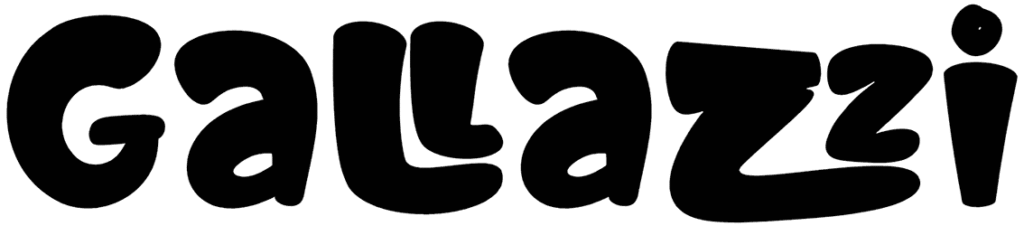
Gallazzi Font
If you are in charge of a crucial kid-oriented project, you could find that Gallazzi is your savior. This fancy, cartoon font lacks numeric characters, but its bold appearance makes it a great choice for headlines and other large-scale printed and digital images.
This 90s T-shirt font is perfect for album covers, movie titles, and video games because of its precise, fun face and cheerful aesthetic. Find it in our massive inventory and pick it up right now.